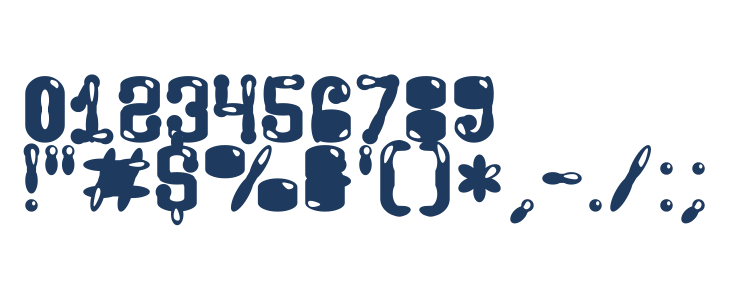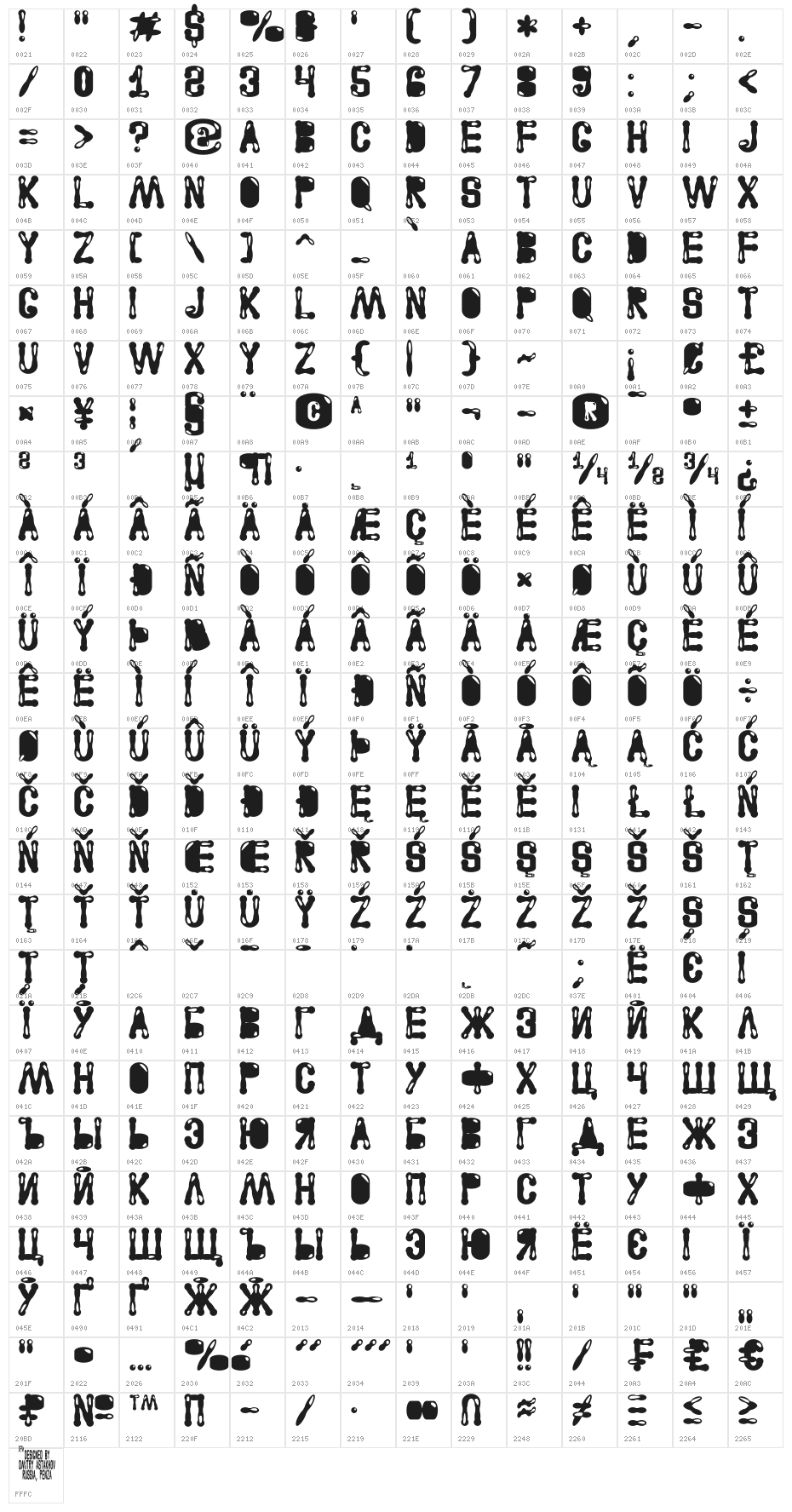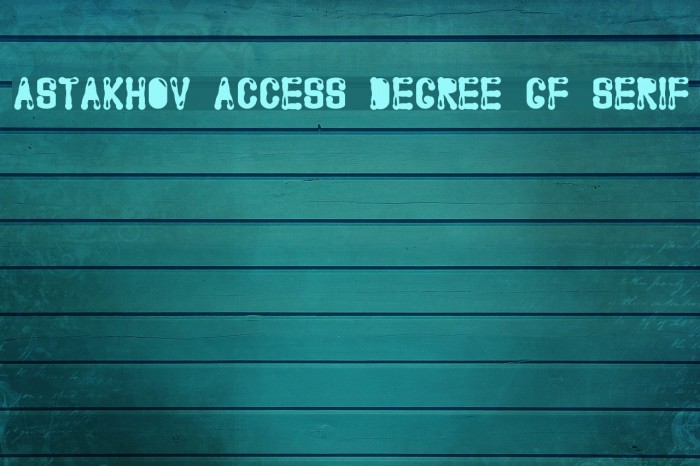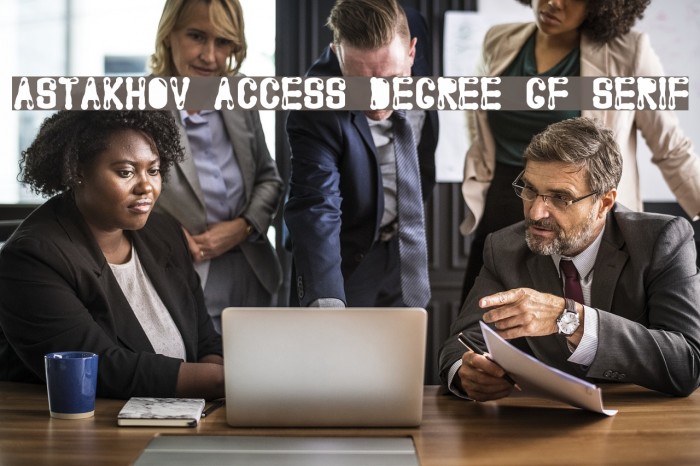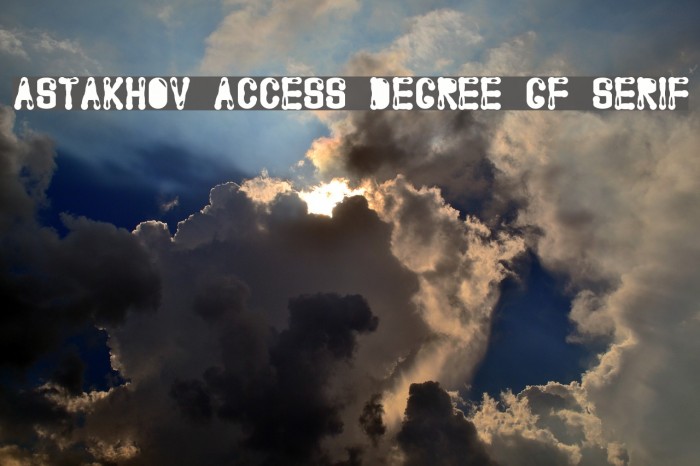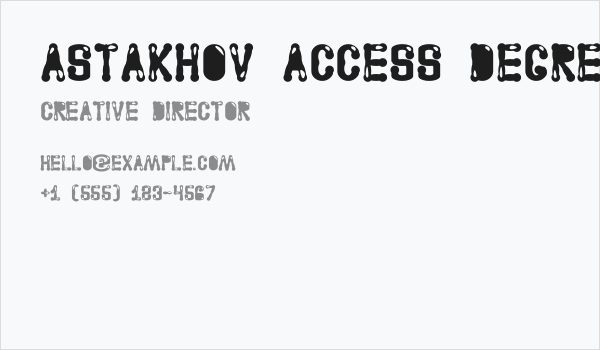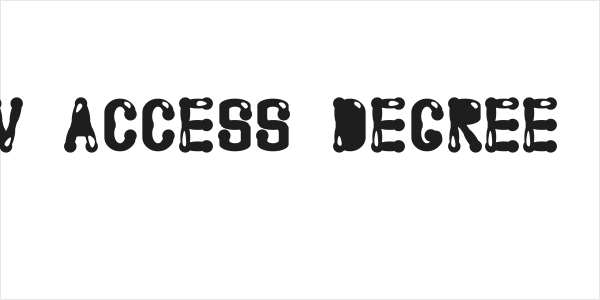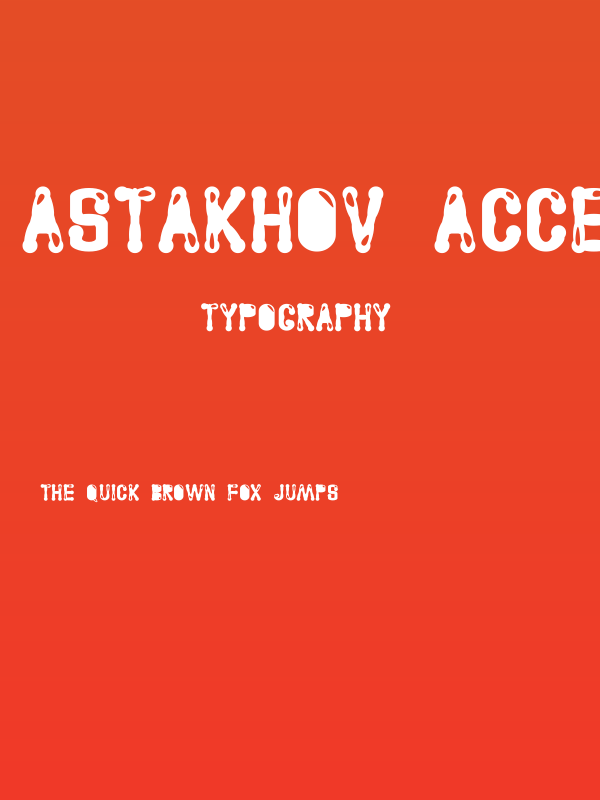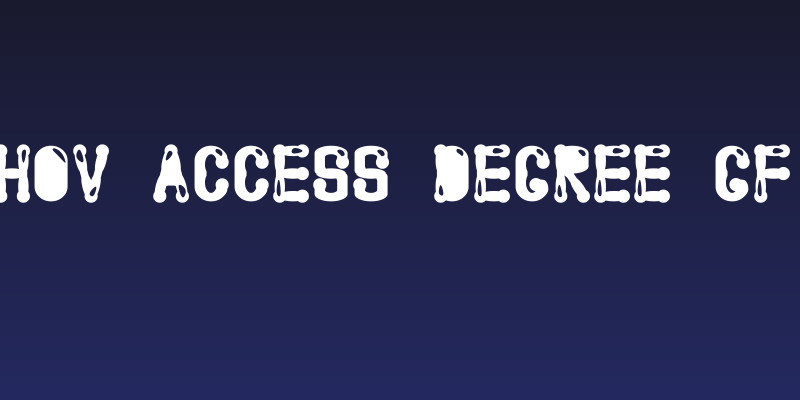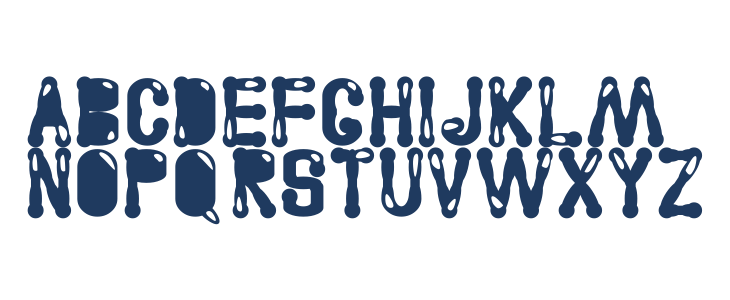
Astakhov Access Degree GF Serif Font
Astakhov Access Degree GF Serif Description
This font features a bold and playful design with a unique, organic appearance. The characters are heavily stylized, with irregular shapes and varying thicknesses that create a dynamic and eye-catching effect. The font's design is reminiscent of liquid or melting forms, giving it a whimsical and artistic feel. The uppercase and lowercase letters maintain a consistent style, while the numbers and special characters are equally bold and distinctive. This font is ideal for projects that require a creative and unconventional look.